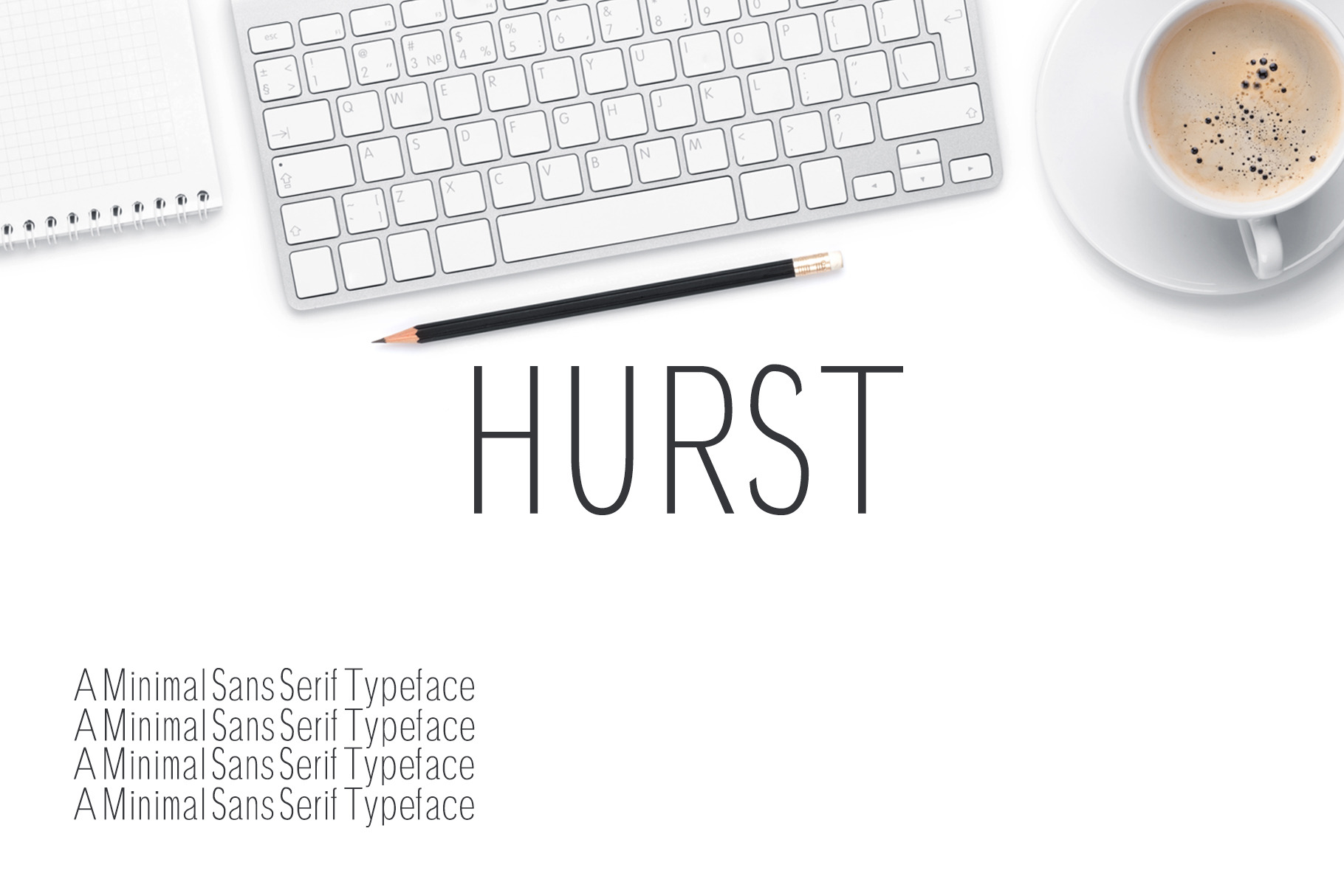
Hurst Sans Serif Font Family Pack
Hurst is a geometric minimalist sans serif font that offers a high legibility also in the lighter weights. Hurst is available in 4 weights. It’s a unique and modern sans typeface, which is well suited for a variety of typographic applications such as headlines and small texts, branding and editorial design, branding, magazines, catalogs, sports, technology, clean designs, logos, headlines, banners, templates and much more.
- Regular, Bold, Extra Bold and Black Weights
- Uppercase Letters
- Lowercase Letters
- Non English Characters ( Latin Supplement + Latin Extended A)